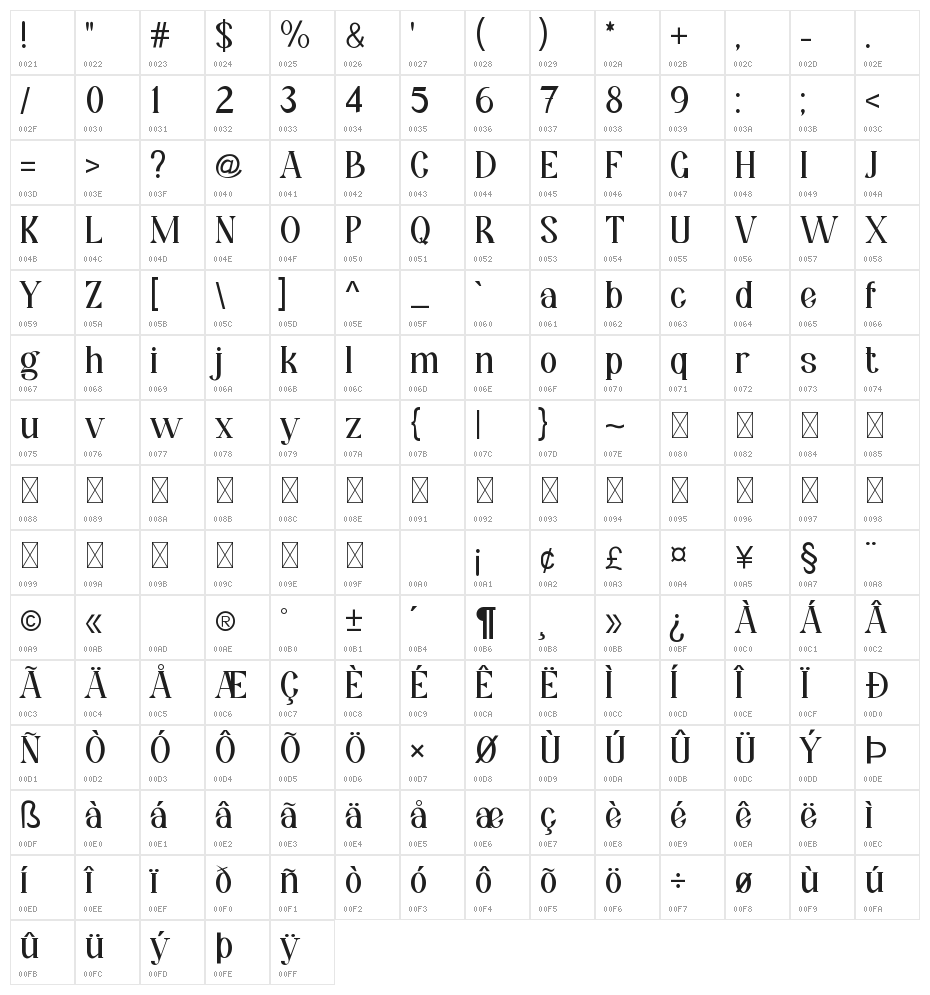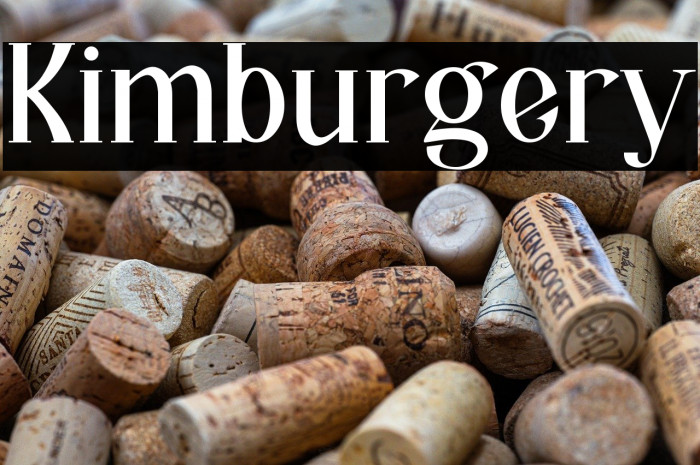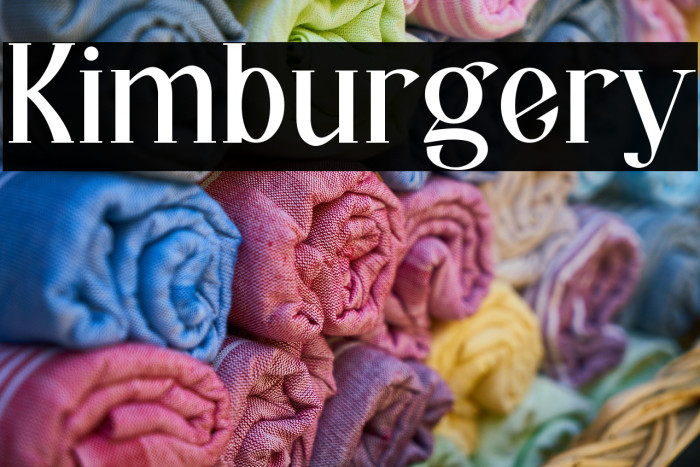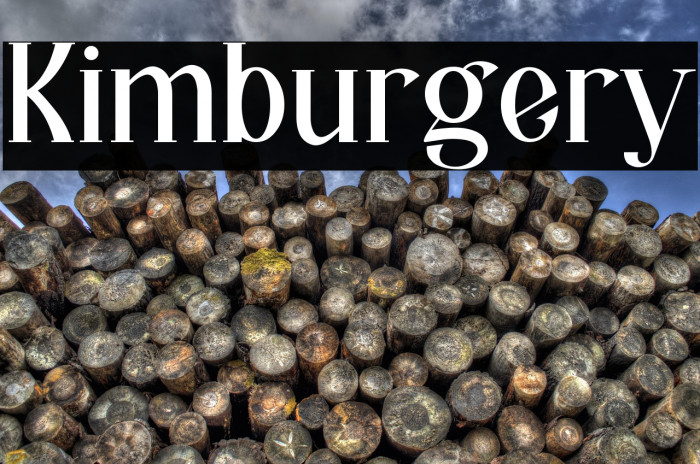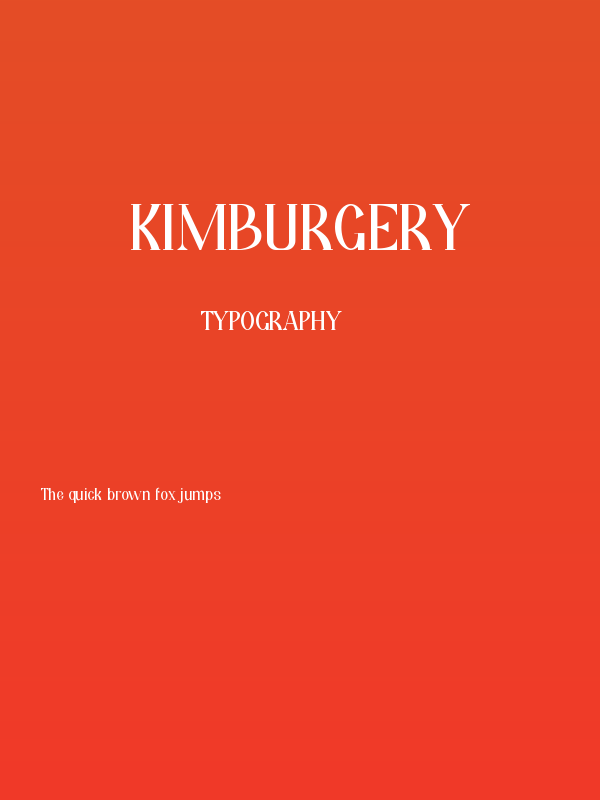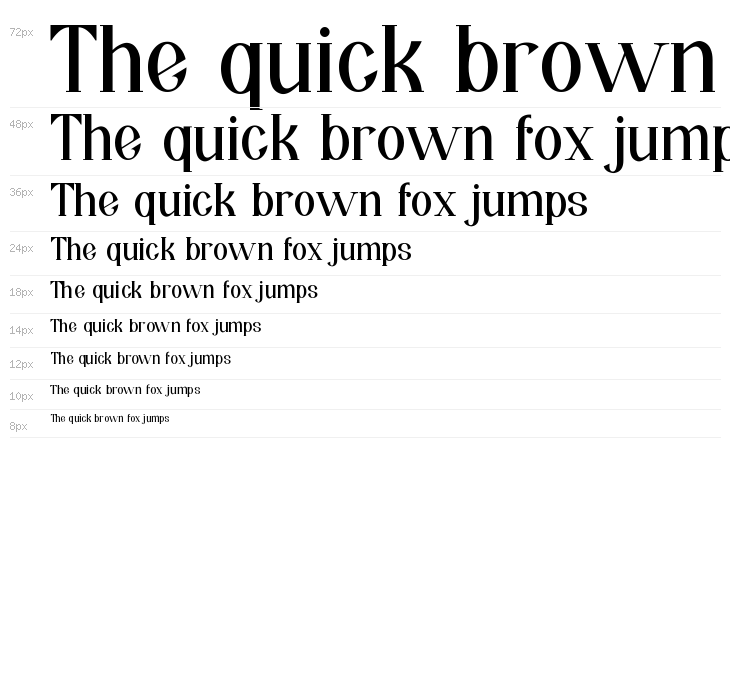
Kimburgery Font
Kimburgery Description
This font features a bold and elegant serif style with high contrast between thick and thin strokes. The uppercase letters exhibit a classic and sophisticated appearance, while the lowercase letters maintain a harmonious balance with slightly rounded edges. The numerals are clear and distinct, making them easy to read. Special characters are designed with a consistent style, adding to the font's overall cohesive look. The font's design is suitable for projects that require a touch of elegance and readability.
| Overall Style | Classic |
| Use Case | Headlines, Logos, Editorial design |
| Proposed Projects | Ideal for use in luxury branding, editorial design, book covers, and high-end product packaging. |